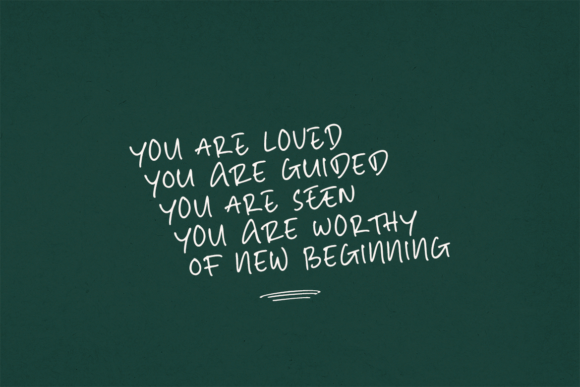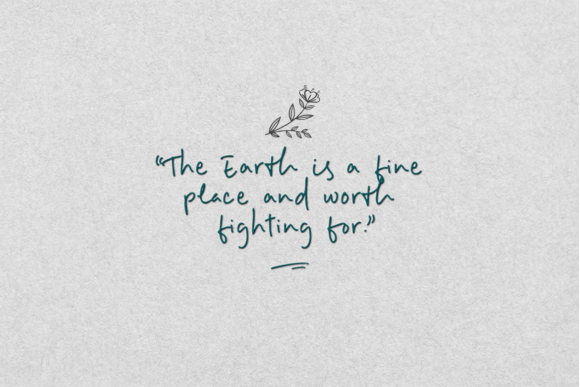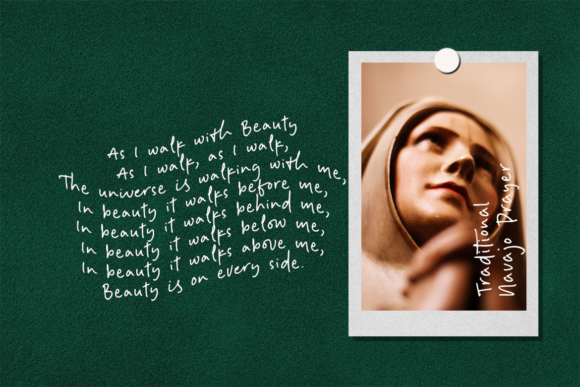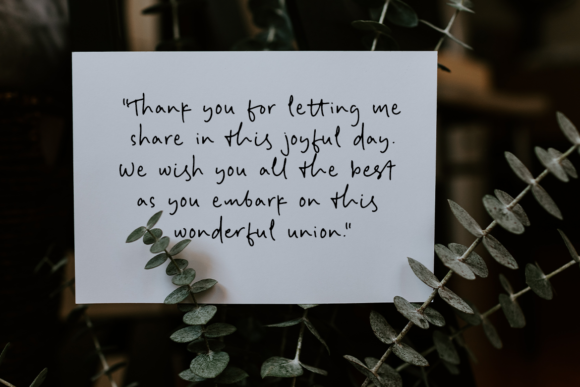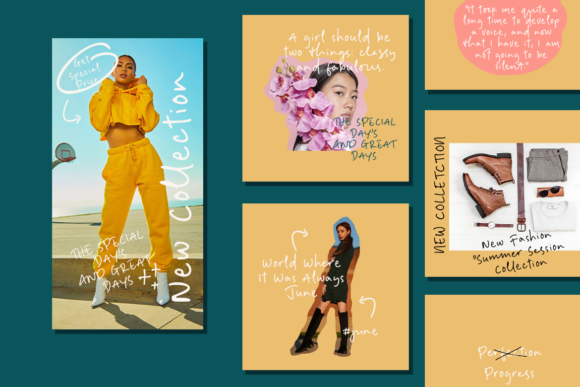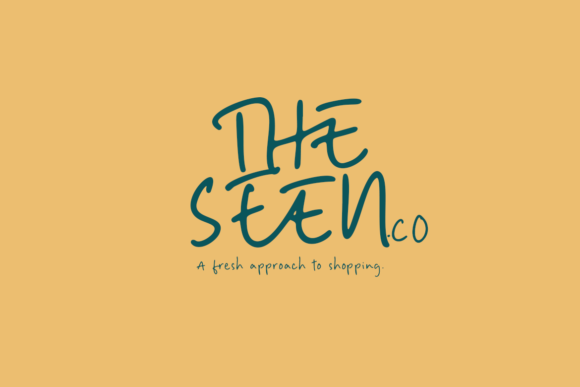
The Power of Kindness in Design
Have you ever stumbled upon a beautiful handwritten font that just sparks your creativity? For me, it’s the little things that make a design project truly special. A unique font can elevate a simple quote into a masterpiece, or transform a plain logo into a memorable brand. That’s exactly what the Kindness Things Font does – it adds a touch of warmth and personality to any design project.
This chic handwritten font features a natural and catchy vibe that’s perfect for designers looking to create engaging and memorable designs. With its versatility, Kindness Things Font is suitable for a wide range of projects, from logos and branding to posters, quotes, and party invitations. Whether you’re a seasoned designer or just starting out, this font is sure to become a valuable addition to your toolkit.
Kindness Things Font Key Features
- Font Family: Kindness Things, with multiple styles (Regular, Bold, Italic, Bold Italic) to cater to various design needs.
- Size: The font includes a wide range of glyphs, covering a large character set (Latin, Cyrillic, and Greek alphabets) with over 700 characters.
- Resolution: Designed to be scalable, Kindness Things Font is suitable for use in various resolutions, from screen displays to print materials.
- Unique Characteristics: The font features a distinctive, hand-drawn style with subtle imperfections, giving it a personal and emotive feel.
Designer Review: Kindness Things Font
I recently had the chance to work with the Kindness Things Font, and here’s my honest take on it.
- The Kindness Things Font is incredibly legible, even at smaller font sizes.
- The font’s cursive nature makes it perfect for creating a sense of warmth and approachability.
- The range of weights and styles available makes it easy to customize and adapt to different design contexts.
- The font’s design can feel a bit generic, which might make it less memorable than other fonts.
- The weight and style options, while numerous, can sometimes feel inconsistent or overly complex.
- The font’s cursive nature can sometimes make it difficult to read in certain contexts, such as in body text.
Overall, the Kindness Things Font is a solid choice for designs that require a friendly, approachable feel. While it may not stand out in terms of originality, its legibility and versatility make it a reliable option. With some careful consideration of its limitations, designers can create effective and engaging designs using this font.
- Use the font to create a sense of whimsy and playfulness in your designs.
The Kindness Things Font is commonly used in:
- Children’s book illustrations and designs.
Alternatives to Kindness Things Font
Great Vibes is a modern, elegant script font perfect for creating a sense of sophistication and warmth. It’s ideal for use in wedding invitations, event branding, and any design where a touch of romance is needed.
Compared to Kindness Things Font, Great Vibes has a more refined and polished look, making it suitable for formal events and high-end branding.
Pacifico is a beautiful, elegant script font that’s perfect for creating a sense of relaxation and tranquility. It’s ideal for use in beach-themed designs, spa branding, and any design where a touch of calmness is needed.
Compared to Kindness Things Font, Pacifico has a more laid-back and casual vibe, making it suitable for beach-themed designs and outdoor branding.
Carolyna Pro is a modern, elegant script font that’s perfect for creating a sense of luxury and sophistication. It’s ideal for use in high-end branding, luxury goods, and any design where a touch of glamour is needed.